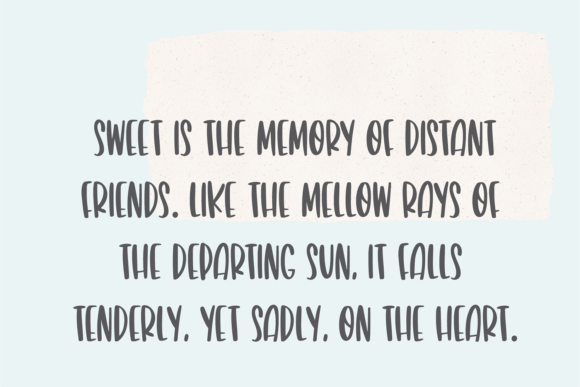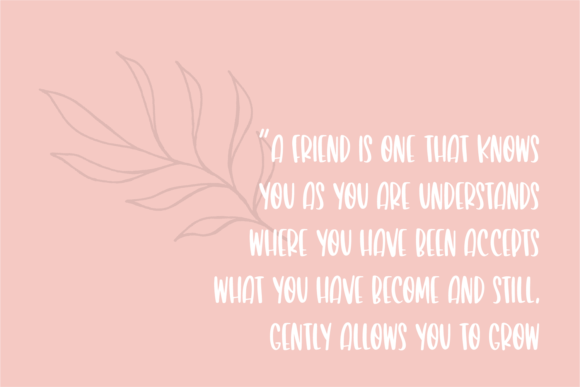
About Caramel Pancake Font
Caramel Pancake is a delightful and playful handwritten font that is perfect for adding a touch of fun and whimsy to any kids and school project. Its childlike playfulness and friendly style make it an excellent choice for capturing the attention and imagination of young audiences.
With its bouncy and energetic letterforms, Caramel Pancake brings a sense of joy and creativity to your designs. Whether you’re working on posters, banners, worksheets, invitations, or any other educational materials, this font will add a cheerful and lighthearted vibe.
The friendly and approachable nature of Caramel Pancake makes it suitable for a wide range of applications. It can be used in children’s books, websites, games, party decorations, and more. Its handwritten appearance adds a personal touch and creates a sense of warmth and authenticity.
Caramel Pancake’s versatility allows it to be used in both digital and print formats. Its legible letterforms ensure clear and easy reading, making it ideal for young readers. The font’s childlike playfulness and charm make learning and engaging with content a joyful experience.
So, embrace the fun and friendly spirit of Caramel Pancake and let it brighten up your kids and school projects. With this font, you can create designs that capture the imagination and spark curiosity, leaving a lasting impression on young minds.